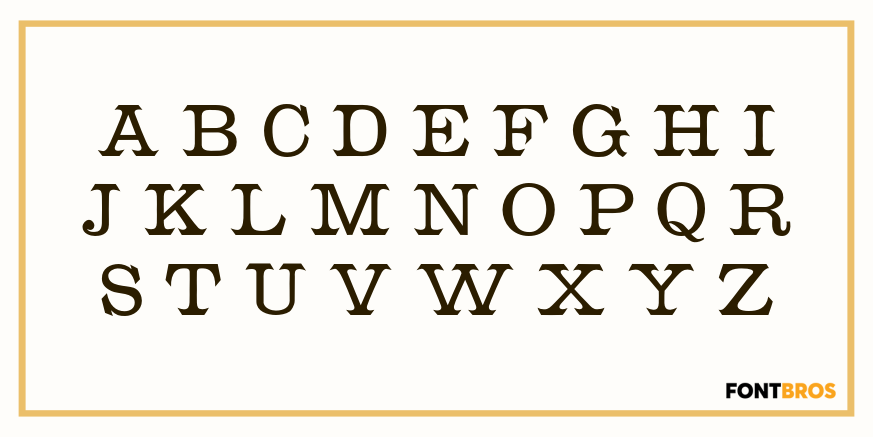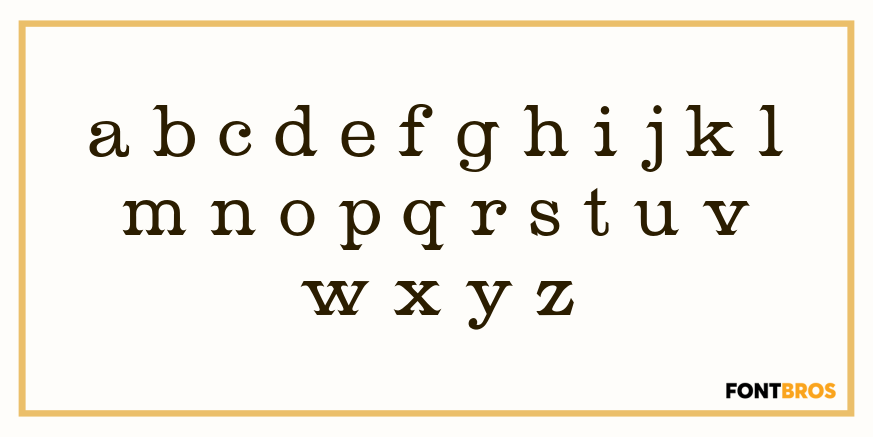
French Ionic
This would be a Clarendon if it weren't for the cute serifs, which set it apart.
Reads well in copy blocks.
French Ionic includes 203 glyphs.
French Ionic by Solotype